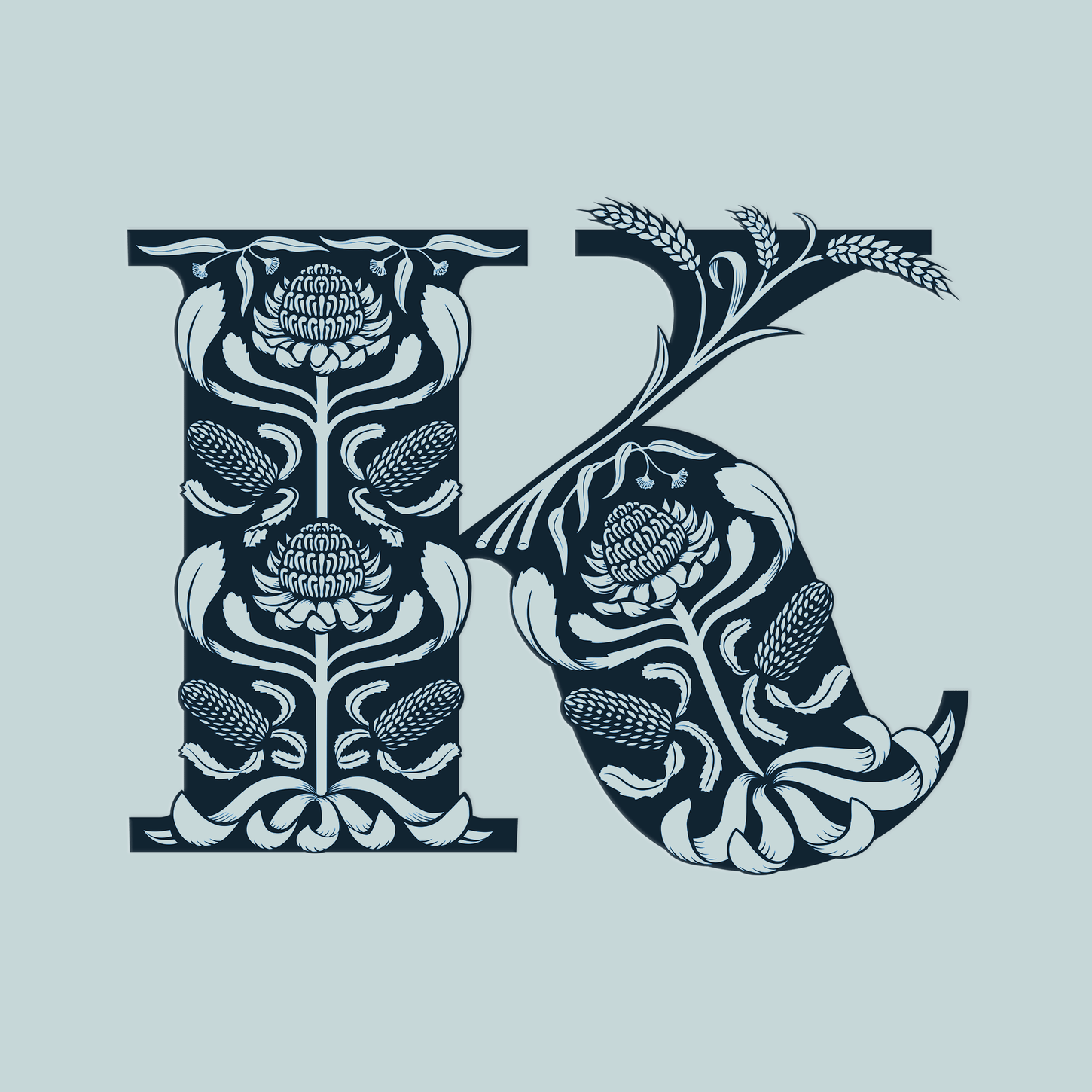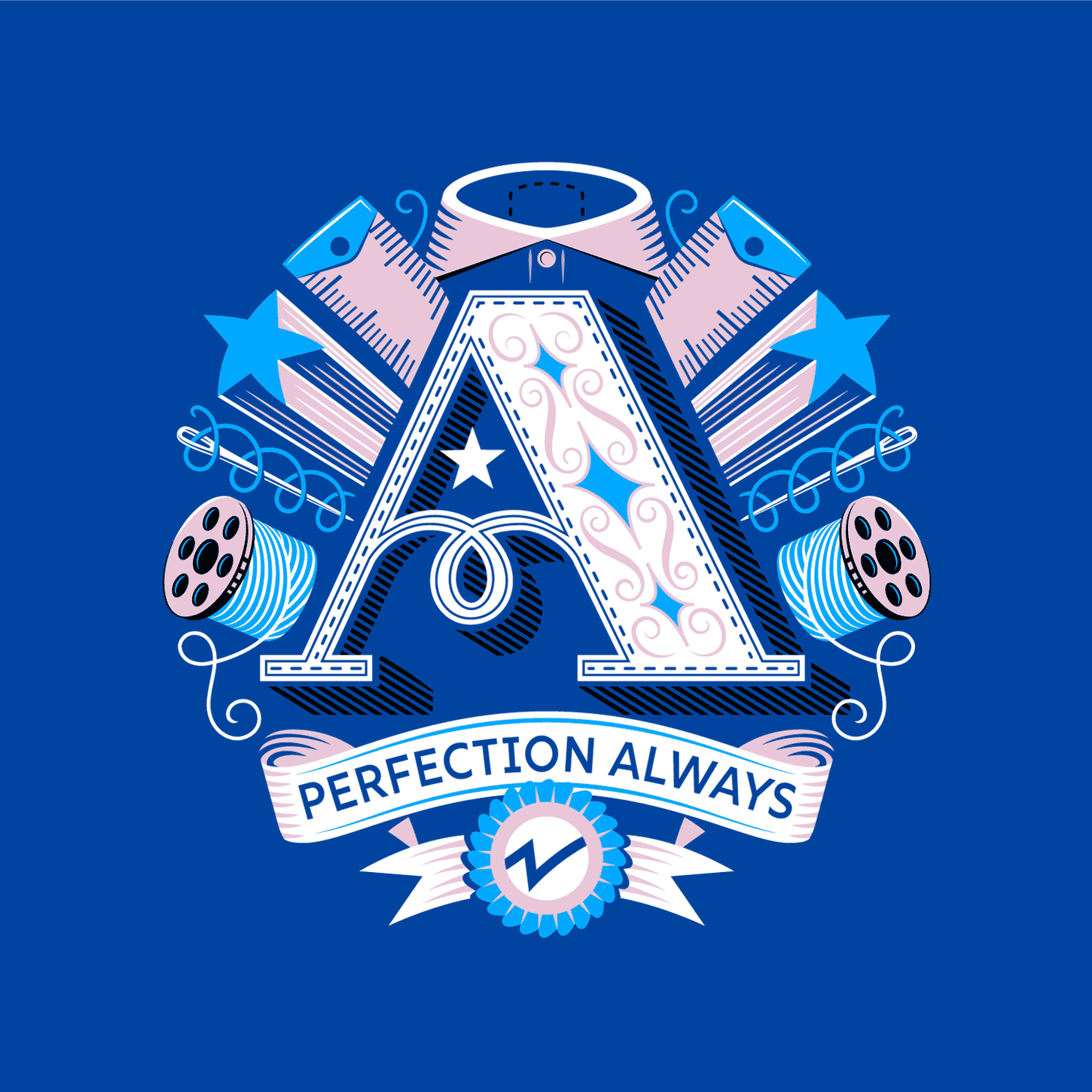
Crests & monograms
Craft a unique, modern icon that weaves symbols and subtle details into an intricate emblem, telling your story with timeless style.
A contemporary crest or monogram adds a touch of timeless elegance to your brand, weaving significant symbols and intricate details into a unique emblem that tells your story.
Kelmscott Bakehouse – K Monogram – Jamie Clarke Type
Kelmscott Bakehouse – Illustrated K Monogram
A Monogram – ALS – Perfection Always – A surrounded by threadJamie Clarke Type
Monogram for fashion label manufacturer, Checkpoint ALS
I start by exploring how to incorporate your brand’s key elements and imagery into a cohesive design. Taking into account how the design will be used, I craft the linework for clarity at scale, creating a mark that clearly embodies your brand’s personality.